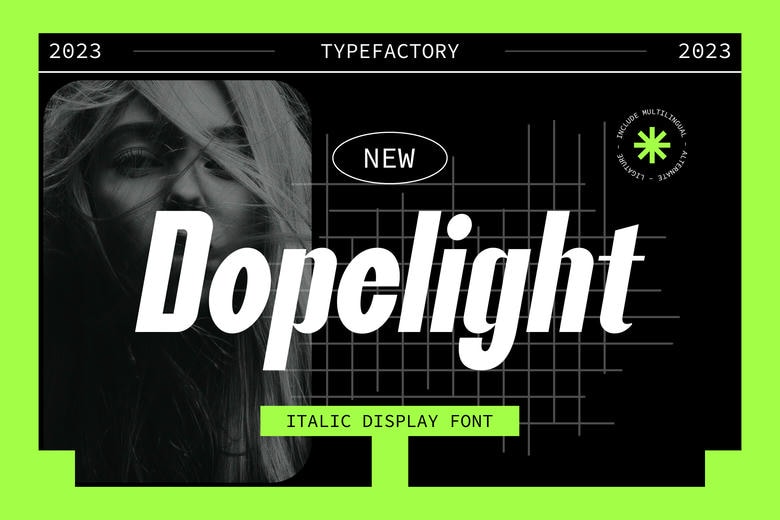
Dopelight Font
Dopelight is a clean italic display font with a contemporary touch that matches style with attitude. Dopelight contains very inspired glyphs that pronounce itself aggressive and contemporary, it is designed to create attention for headlines, posters, covers, branding, and all sorts of lightings.
This typeface looks active, carry energy and would be perfect for any project that needs that aggressive and future perspective. Dopelight should be included in all forms of media whether online or offline it gives your designs a form of a rude awakening and this is sophistication.
Dopelight Display Font